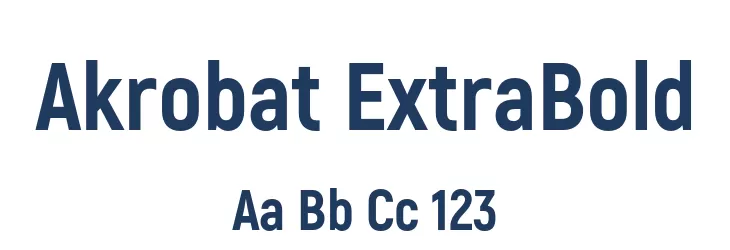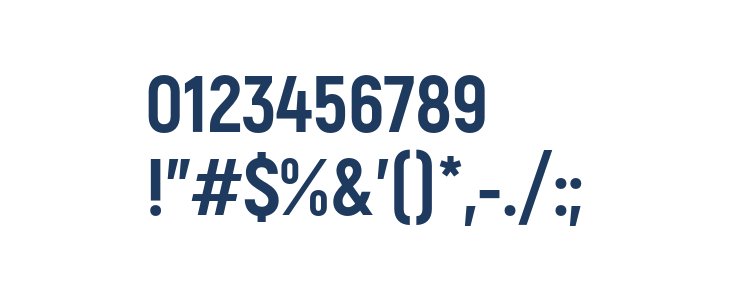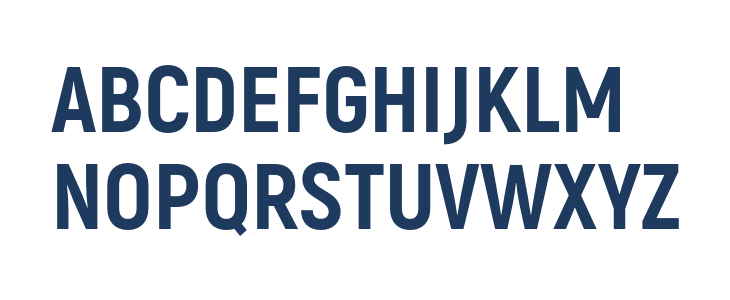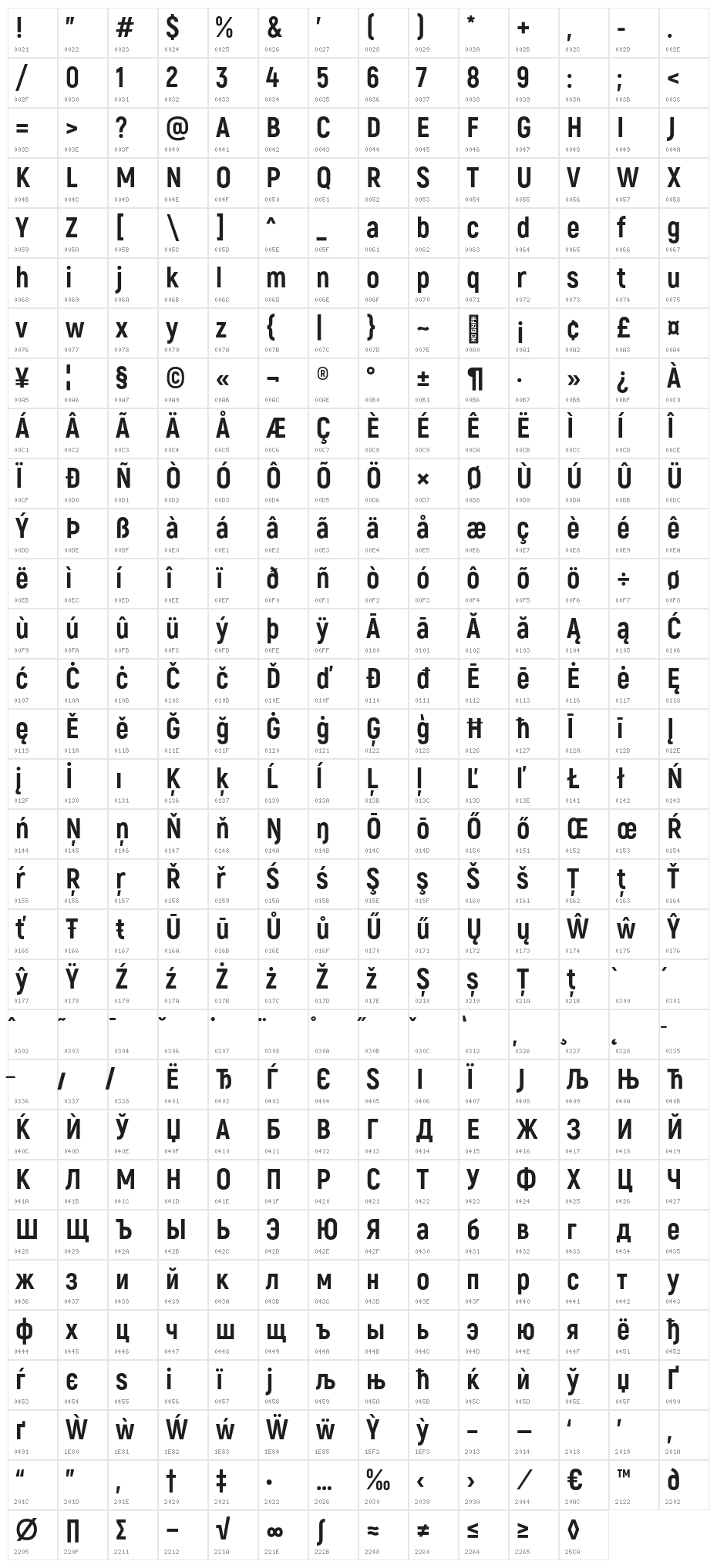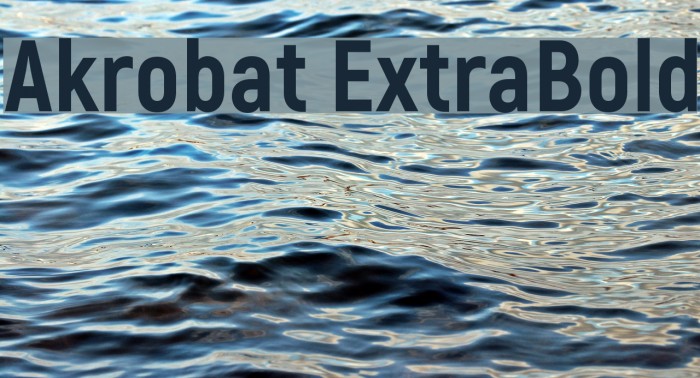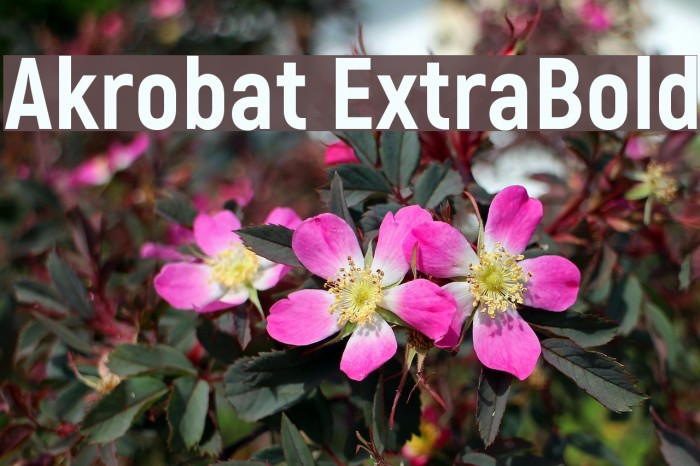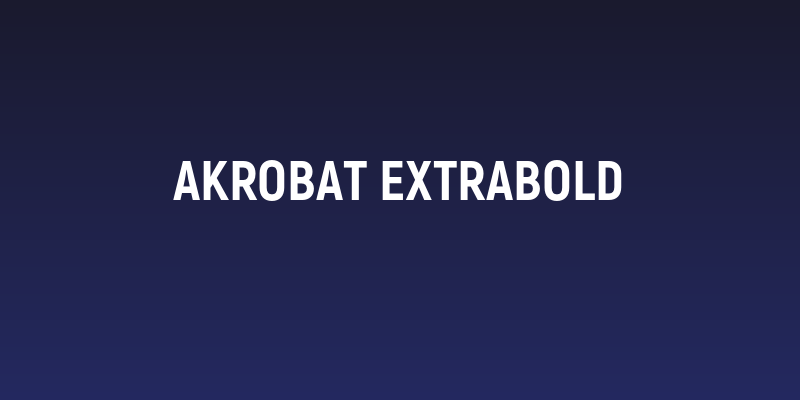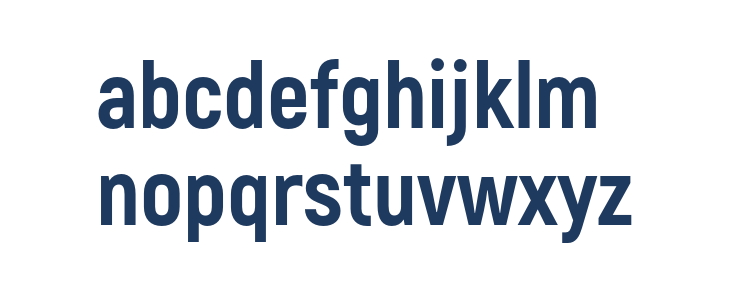
Akrobat ExtraBold Description
This font exhibits a clean, modern sans-serif style with a strong geometric influence. The characters are bold and uniform, providing excellent readability and impact. The uppercase and lowercase letters maintain consistent proportions, while the numerals are clear and straightforward. Special characters are well-defined, making this font versatile for various applications. Its extra-bold weight ensures that it stands out, making it ideal for attention-grabbing headlines or titles. The overall design is sleek and contemporary, suitable for both digital and print media.